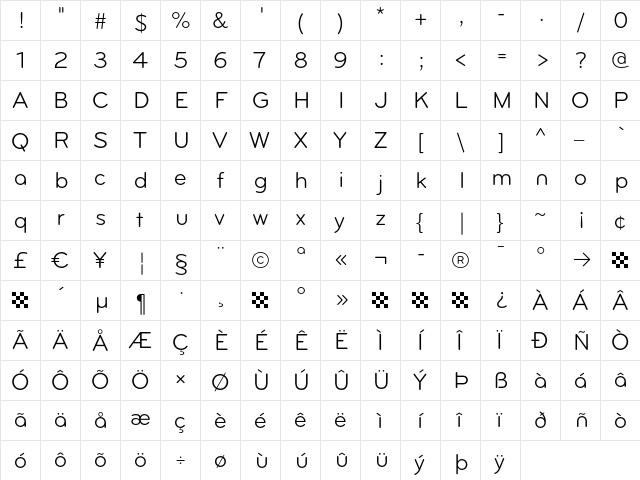
Bryant-RegularAlt Regular
Design Context for Bryant-RegularAlt Typeface
Bryant-RegularAlt offers clean, dependable letterforms without strong stylistic allegiance, making it a practical choice for designers who need flexibility.